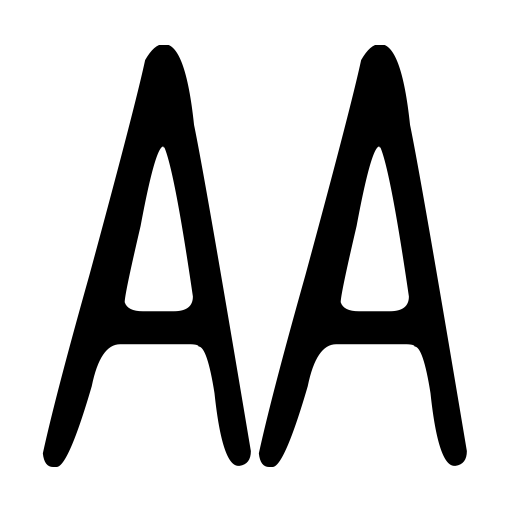
Asteroide is a quirky, narrow sans serif font with a hand-drawn feel, characterized by its tall, condensed letterforms and slightly irregular strokes that add charm and personality. Its playful yet legible style makes it ideal for creative projects, casual branding, and headlines where a unique, friendly vibe is desired. This font works well in posters, packaging, and designs aiming for an informal, approachable look with a touch of whimsy.
Asteroide Font
About Asteroide Font